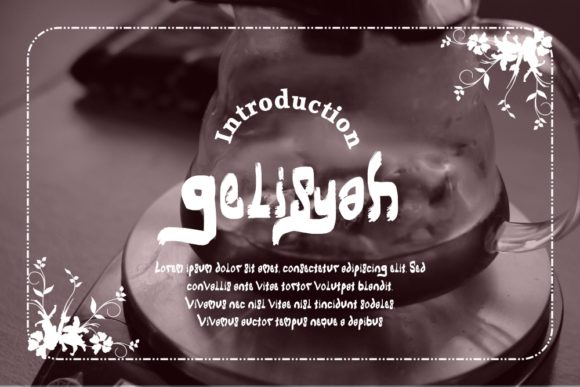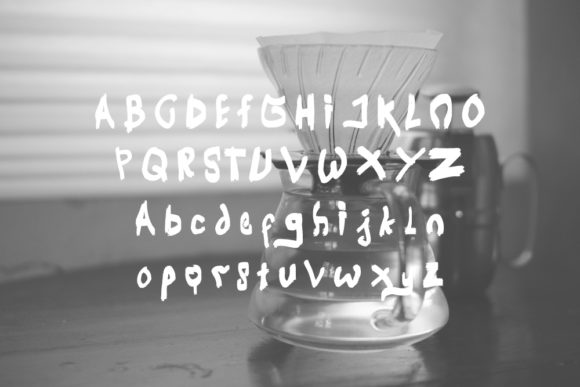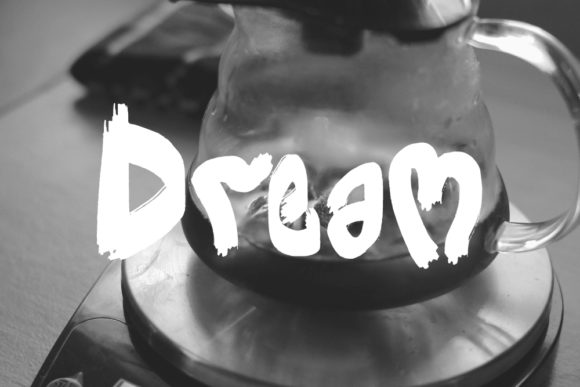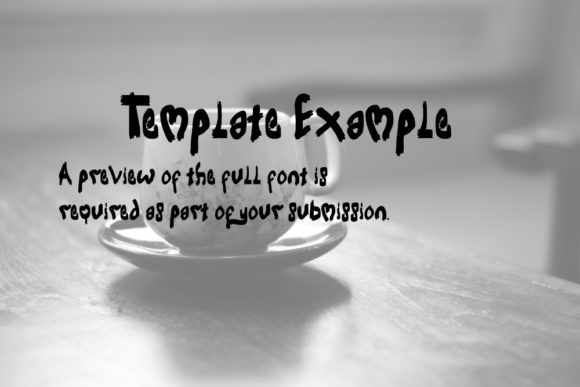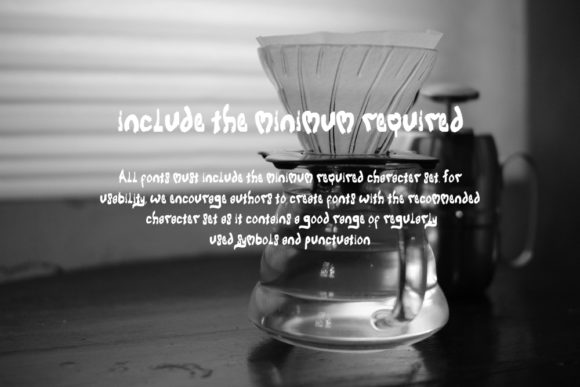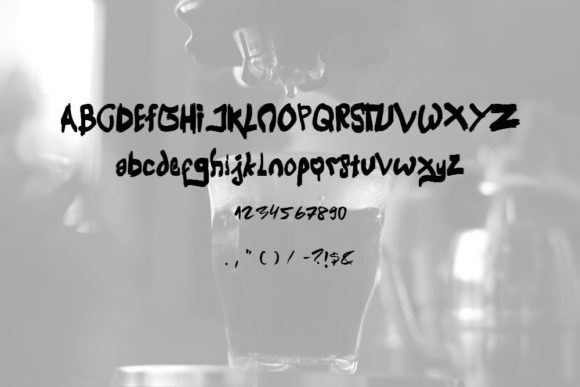
About Gelisyah Font
Gelisyah is a modern handwritten font. It will look outstanding in any context, whether itβs being used on busy backgrounds or as a standalone headline!